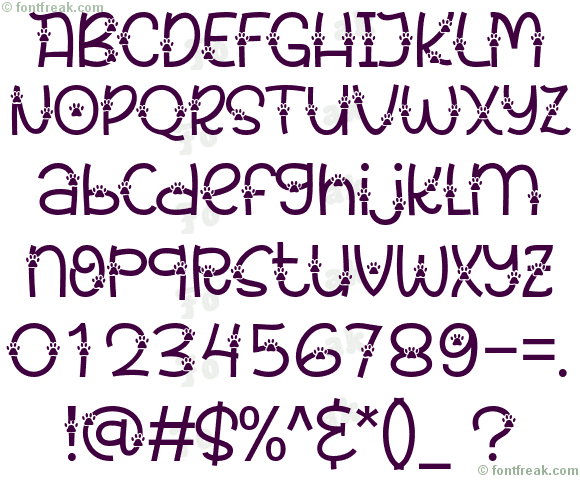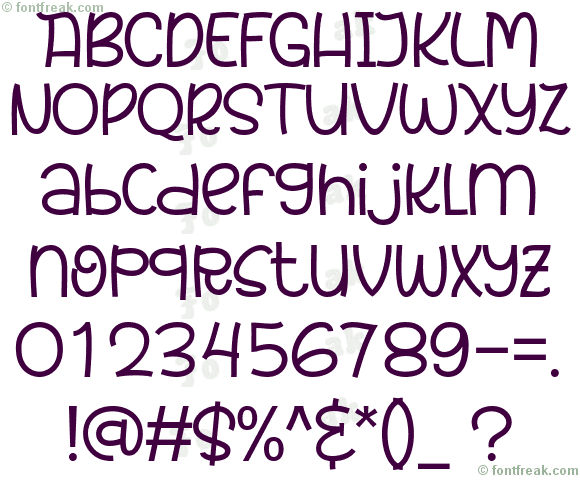
Ramen Neko Two
Ramen Neko
Ramen Neko Two, designed by Situjuh Nazara, is a whimsical display font that leans towards a decorative style. This font stands out with its playful curves and unique character shapes, offering a charming, carefree aesthetic ideal for a variety of creative projects. The stroke weight varies, providing a delightful contrast that catches the eye. Decorative elements, such as paw prints integrated into some characters, enhance its cheerful vibe, making it a fun choice for design work that aims to evoke warmth and personality. The spacing is well-balanced, ensuring readability while maintaining its playful character.
This font is perfect for specific use cases like restaurant menus, especially for establishments focusing on Asian cuisine, as it captures the essence of a lighthearted dining experience. It also works wonderfully for food blogs and promotional materials that want to convey a casual, inviting tone. Additionally, Ramen Neko Two is an excellent choice for kids' party invitations or any design project that targets a youthful audience. Graphic designers and small business owners looking to add a unique touch to their branding will find this font particularly appealing. Content creators can also leverage its quirky charm for social media graphics and merchandise designs.